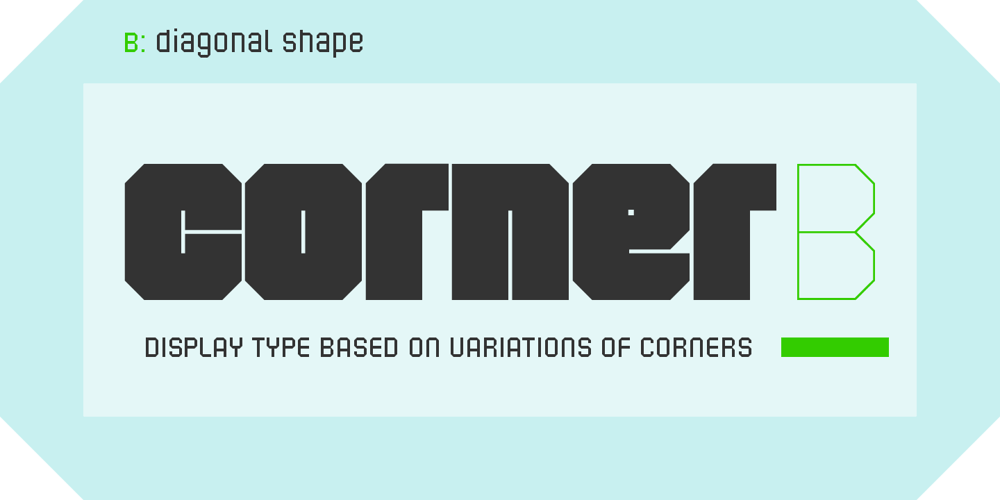
Corner B Font Family was designed by Samuel Čarnoký and published by CarnokyType. Corner B contains 3 styles and family package options. Corner B is a part of Corner type family. This subfamily is designed with diagonal shapes in the corners. The concept of the typeface Corner is based on variation of corner shapes in font characters, from what is also its name derived. The basis is a bitmap modular principle, to which by simple addition of “the missing pixels” in corners of the characters (Corner A) to the shape of diagonal (Corner B), curvature (Corner C), or inversion curvature (Corner D), three more font variations are created. The basic monolinear bitmap weight is supplemented by two more extreme thicknesses – hairline and fat weight. The character set supports the complete Latin, while the x-height of lowercase is drawn at the same height as in the uppercase characters. Corner is a strong display typeface, which allows you to easily experiment and to combine it with its mutual font variations.